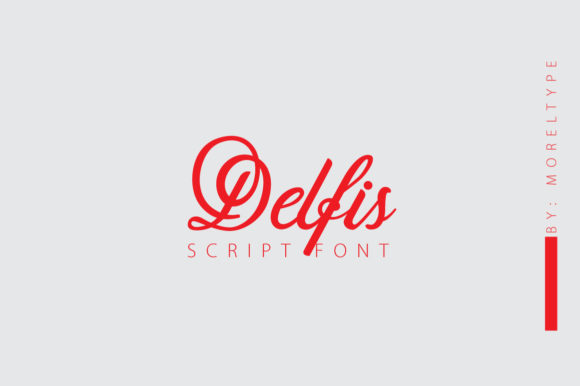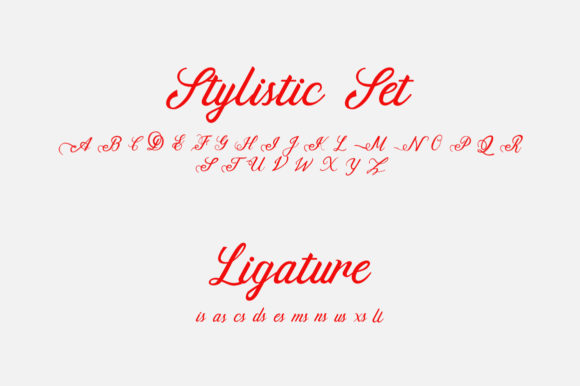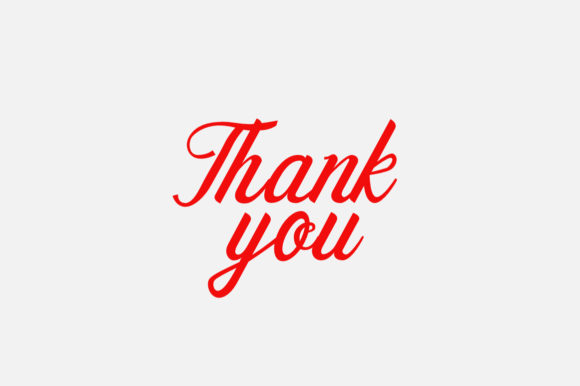
About Delfis Font
“Delfis” exudes an aura of elegance and flow that is truly captivating. This font possesses a striking beauty that makes it a perfect fit for an array of design projects. From wedding invitations and thank you cards to quotes, greeting cards, logos, and business cards, “Delfis” graces each design with a touch of sophistication and grace.
The allure of “Delfis” lies in its remarkable and graceful design. Its flowing lines and smooth curves create a visual masterpiece that resonates with viewers. Whether you’re aiming for a romantic and refined ambiance or a polished and professional appearance, this font effortlessly adapts to your creative vision.
When integrated into your designs, “Delfis” elevates ordinary elements to extraordinary levels. It brings a sense of authenticity and elegance that enhances your projects. Whether it’s adorning a wedding invitation or accentuating a business logo, the font’s presence adds a layer of refined beauty that leaves a lasting impression.
Make “Delfis” a cherished asset in your design toolkit, allowing it to effortlessly infuse your work with elegance and flow. Whether you’re a seasoned designer or a newcomer to the creative realm, this font empowers you to craft visuals that convey authenticity and style. Embrace the captivating essence of “Delfis” and let its elegant and flowing character enhance your designs, capturing the essence of each occasion and message with grace and sophistication.